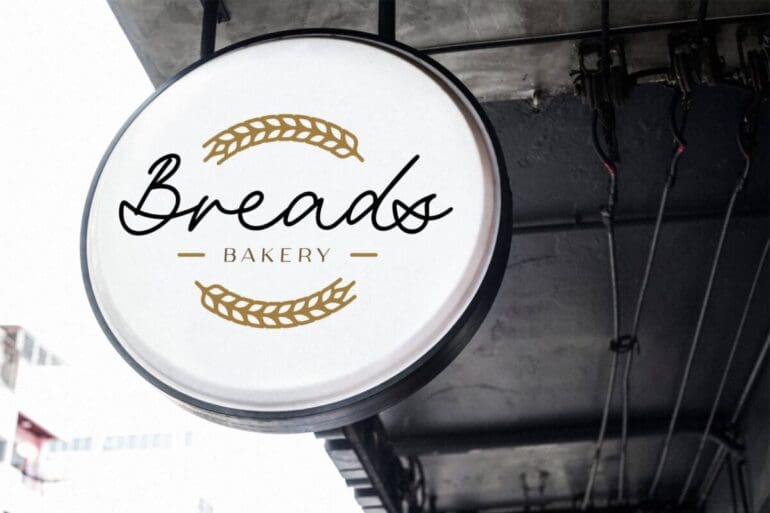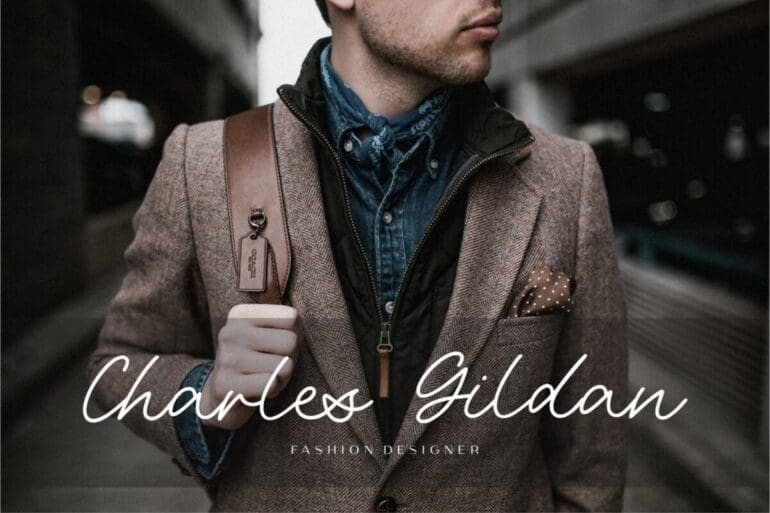
Shortline Font
Shortline is a sweet and cursive handwritten font. This gentle font will look gorgeous on a variety of design ideas. It will add a joyful and romantic touch to each of your projects!